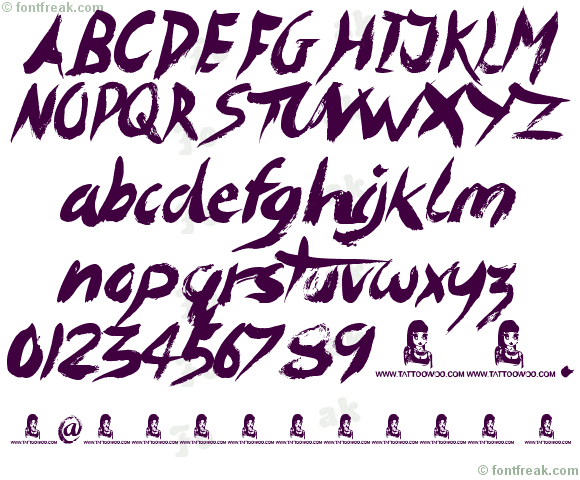
Imagination Station
The Imagination Station font, designed by Jonathan S. Harris, is a striking display typeface that captures the essence of creativity and whimsy. This font is characterized by its bold brush-like strokes and dynamic forms, making it perfect for projects that demand attention and flair. The stroke weight varies throughout, contributing to a sense of movement and energy, while the high contrast between thick and thin lines adds visual interest. The generous spacing between characters enhances legibility, ensuring that your message resonates clearly with viewers.
Imagination Station excels in various applications, making it a versatile choice for designers. It is particularly well-suited for wedding invitations, where its artistic flair can convey a sense of elegance and romance. Additionally, it works wonders on movie posters, where the dramatic style can evoke excitement and intrigue. Restaurant menus benefit from its unique charm, creating an inviting atmosphere for diners. Furthermore, this font can enhance branding materials for creative businesses, helping to establish a distinctive identity that stands out.
Targeted at graphic designers, small business owners, and content creators, the Imagination Station font allows for expressive and memorable designs. Its free availability as freeware adds to its appeal, making it accessible for anyone looking to elevate their projects without a financial burden.
What sets the Imagination Station font apart is its ability to blend artistry with functionality. Its playful yet sophisticated design makes it an ideal choice for those who wish to make a lasting impression. Whether you’re crafting a personal project or a professional piece, the Imagination Station font free download offers a unique opportunity to infuse your work with creativity and style.